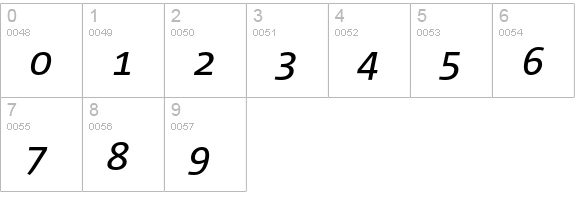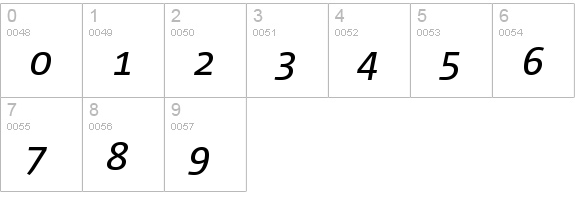
Corpid Italic is a distinctive, italic variant in the Corpid typeface family \xE2\x80\x94 well suited to design and typography projects.
Corpid Italic font exudes elegance and sophistication with its sleek and modern design. The slanted letters create a sense of movement and dynamism, making this font perfect for adding a touch of flair to any project. The refined curves and clean lines of Corpid Italic make it a versatile choice for a wide range of design applications, from branding to editorial design. Best of all, Corpid Italic is available for free download at FontsMarket.com, where you can easily access this stylish font to elevate your creative projects. Embrace the timeless charm and versatility of Corpid Italic in your designs today.